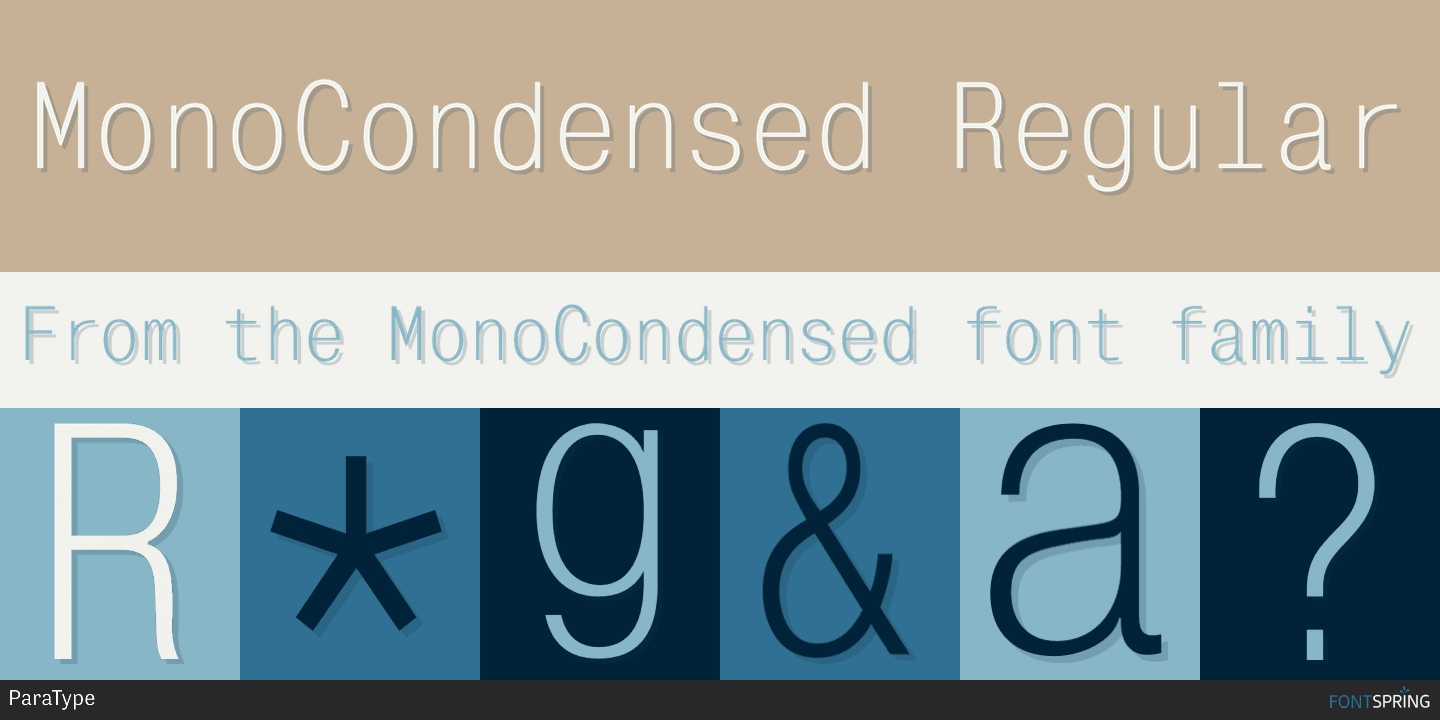
Mono Condensed Font
Mono Condensed Font is perfect for technical documentation, coding environments, data visualization, financial reports, scientific publications, space-efficient layouts, terminal interfaces, compact signage systems, engineering drawings, and dense information displays.
Mono Condensed Font is exciting because it maximizes information density while maintaining the precision and clarity essential for technical applications, creating a typeface that perfectly balances space efficiency with functional readability. This font brings compact professionalism and technical excellence to any project, making it ideal for applications where space is premium but clarity cannot be compromised. Its narrow proportions and monospaced structure create an atmosphere of technical precision and efficient communication.
Mono Condensed Font family includes light, regular, medium, and bold weights, along with extended character sets and technical symbols, providing designers with comprehensive tools for creating space-efficient typography and compact information systems across various technical applications.
This specialized monospaced typeface combines traditional fixed-width functionality with contemporary space-saving design principles, making Mono Condensed Font Free Download an exceptional choice for modern technical and data-heavy applications. The font's precisely engineered letterforms feature optimized character width and consistent spacing that ensure perfect alignment while maximizing content density.
Whether you're designing software interfaces, technical manuals, or data-rich presentations, Mono Condensed Font delivers outstanding space efficiency and technical reliability. The font excels particularly in environments where maximum information display is crucial, from terminal windows to complex financial dashboards and scientific documentation.
Technical professionals choose Mono Condensed Font for its ability to display more content in limited space while maintaining the character distinction essential for code review and technical accuracy. The font's compact character makes it particularly valuable for embedded systems, mobile interfaces, and print applications with strict space constraints.
Each character has been meticulously optimized for maximum space efficiency while preserving the clarity and distinction necessary for technical accuracy and extended reading in demanding professional environments.